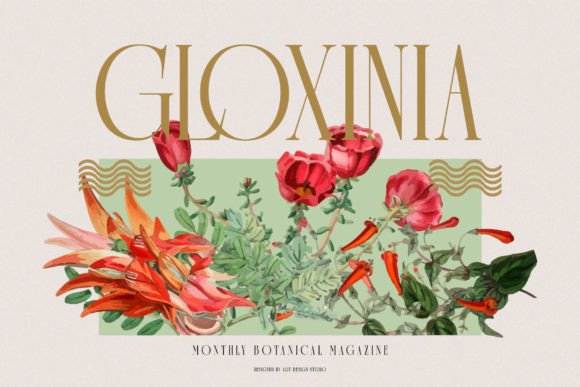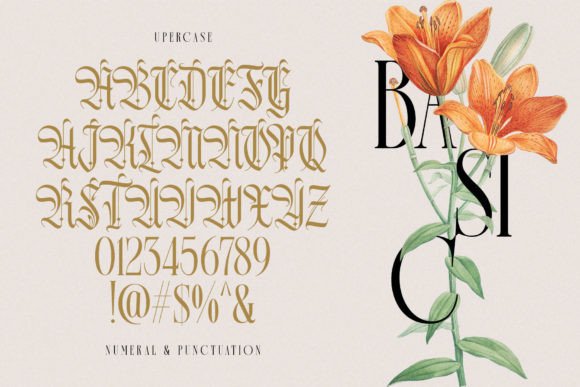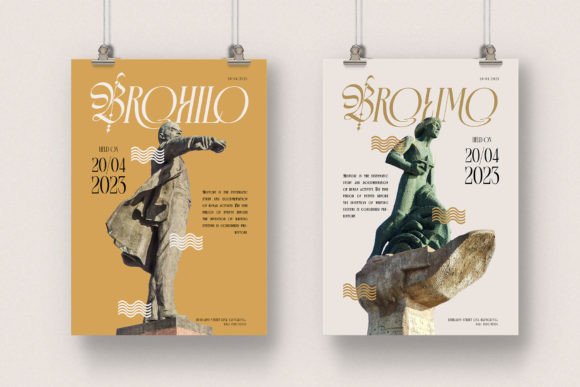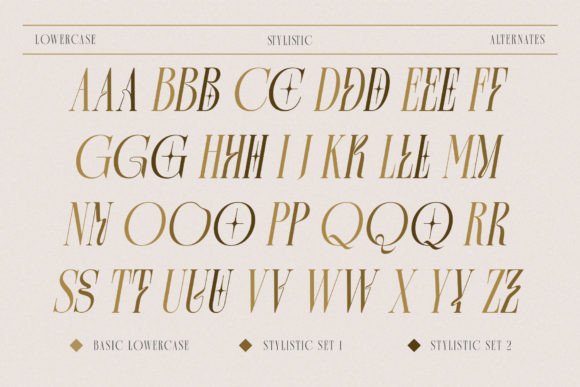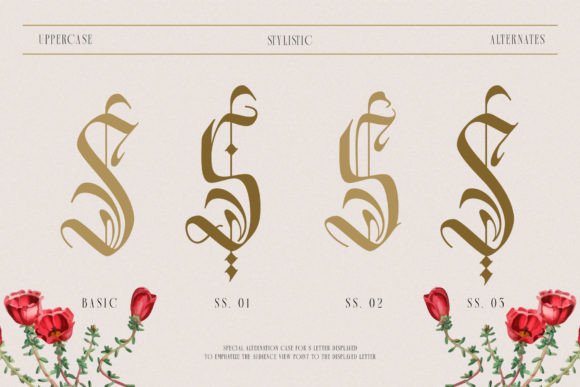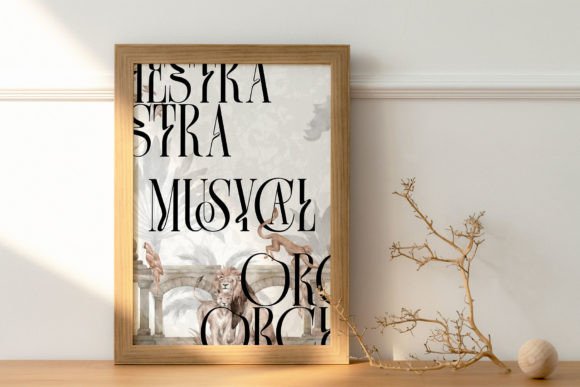
Unleash Your Creativity with the Darkones Font: A Unique Blackletter Typeface
Are you a designer or crafter looking for a font that can add a touch of edginess and personality to your projects? Look no further than the Darkones font, a distinctive and versatile typeface that combines the elegance of blackletter with the dynamism of serif styles. In this article, we’ll explore the features and benefits of the Darkones font, and show you how it can elevate your designs to the next level.
A Unique Combination of Styles
The Darkones font is a one-of-a-kind typeface that brings together the best of blackletter and dynamic serif styles. Its bold and dramatic appearance makes it perfect for designs that require a strong and edgy look, such as magazine designs, tattoo art, social media ads, and clothing. Whether you’re creating a bold statement piece or a subtle design, the Darkones font is sure to make a lasting impression.
A Wealth of Characters at Your Fingertips
One of the standout features of the Darkones font is its extensive character set. With a total of 756 characters, you’ll have access to a wide range of swashes, special ligatures, and alternative characters to help you create unique and eye-catching designs. Whether you’re looking to add a touch of elegance or a dash of whimsy to your project, the Darkones font has got you covered.
Multilingual Support and PUA Unicode
The Darkones font is designed to support PUA unicode, making it easy to use and access a wide range of characters. Additionally, the font is multilingual, allowing you to use it for various projects in different languages. This makes it an excellent choice for designers and crafters who work with international clients or need to create designs for a global audience.
The Darkones font is incredibly versatile, making it suitable for a wide range of projects. Here are just a few ideas to get you started:
- Magazine designs: Add a touch of edginess to your magazine layouts with the Darkones font.
- Tattoo art: The bold and dramatic appearance of the Darkones font makes it perfect for tattoo designs.
- Social media ads: Stand out from the crowd with eye-catching social media ads featuring the Darkones font.
- Clothing: Add a touch of personality to your clothing designs with the Darkones font.
Why Choose the Darkones Font?
So why choose the Darkones font for your next project? Here are just a few reasons:
- Unique and distinctive appearance: The Darkones font is sure to make your designs stand out from the crowd.
- Extensive character set: With 756 characters to choose from, you’ll have endless possibilities for creative expression.
- Multilingual support: The Darkones font can be used for projects in multiple languages.
- PUA unicode support: Easy to use and access a wide range of characters.
In conclusion, the Darkones font is a versatile and expressive typeface that can add character and personality to any project. Its unique combination of blackletter and dynamic serif styles, extensive character set, and multilingual support make it an excellent choice for designers and crafters looking to create bold and eye-catching designs. Whether you’re working on a magazine layout, tattoo design, social media ad, or clothing project, the Darkones font is sure to help you unleash your creativity and take your designs to the next level.